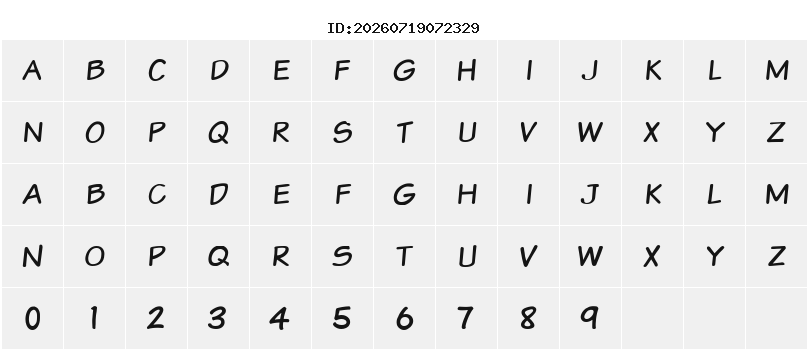
• Font Name: Comixxx
About Comixxx.ttf
Comixxx.ttf is a modern, elegant sans-serif font designed for ultimate readability and visual harmony. Perfect for branding, headlines, web design, and print materials.